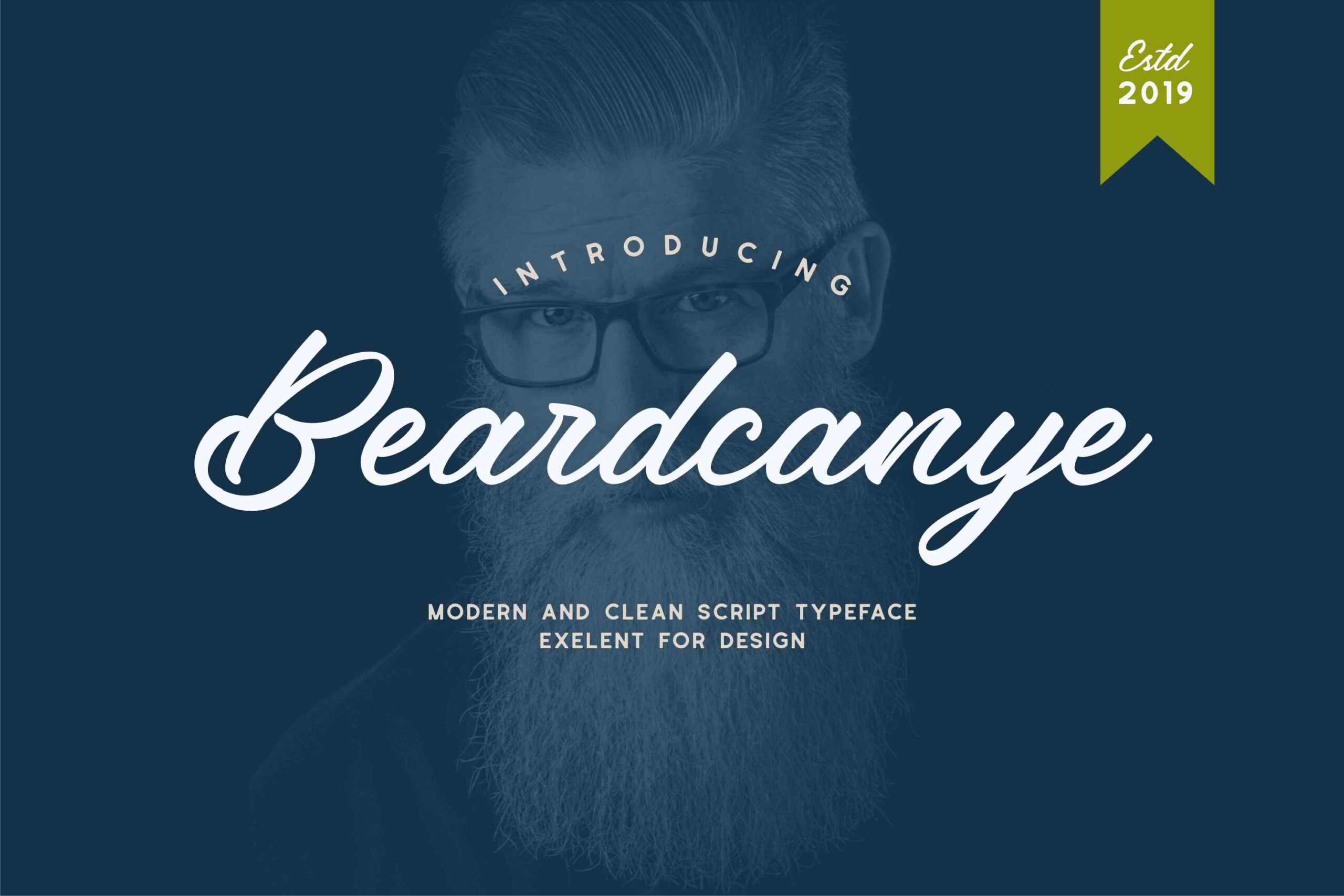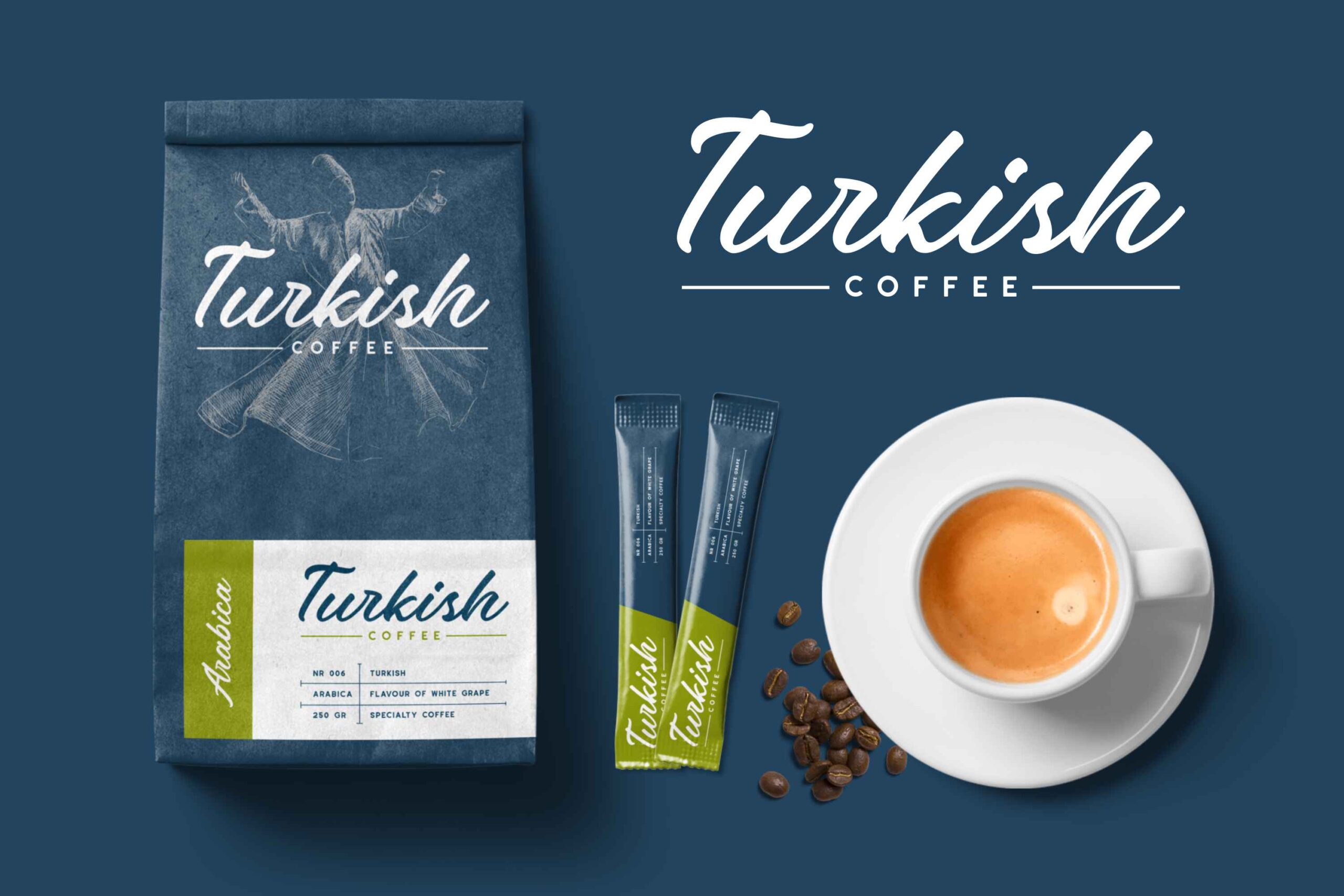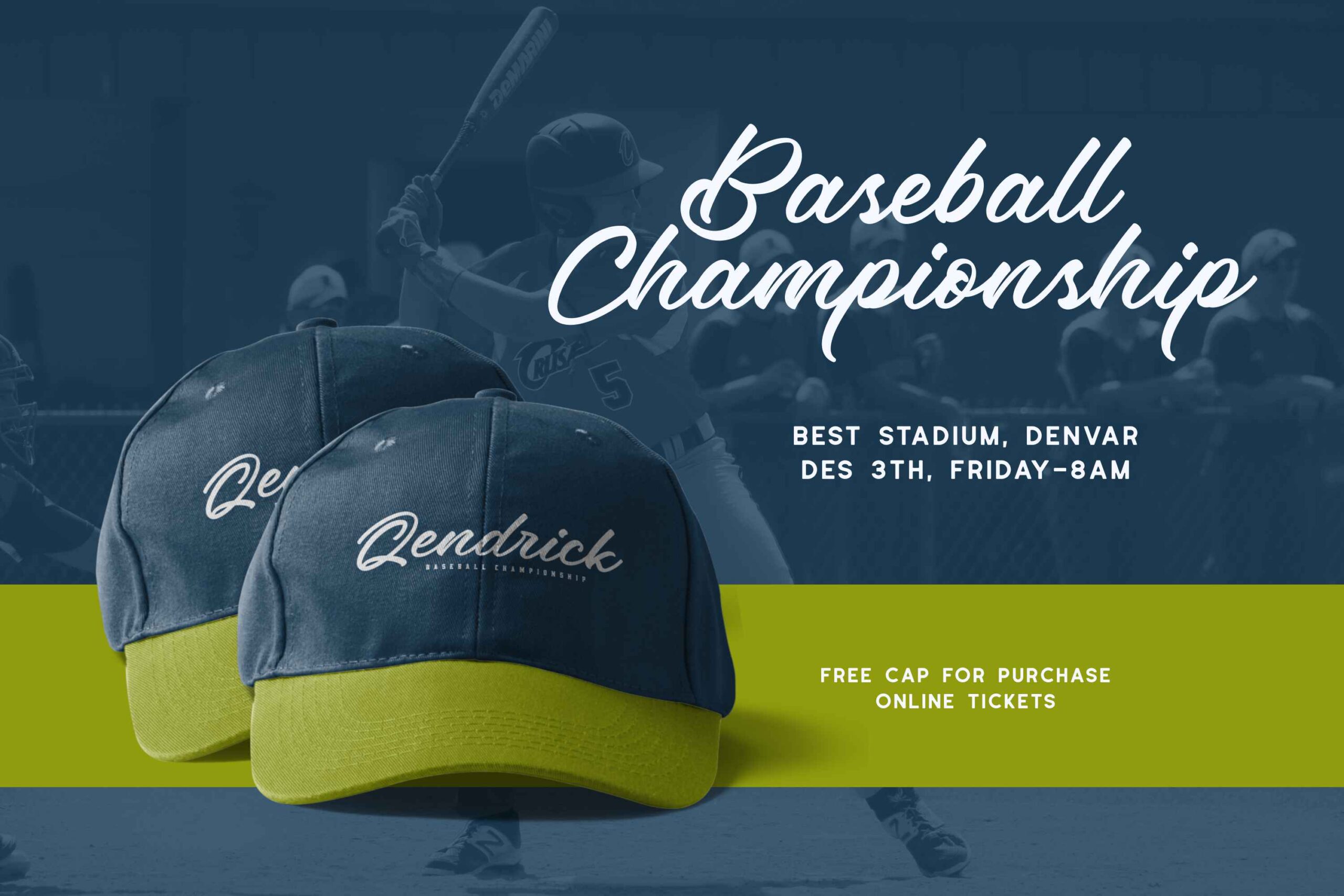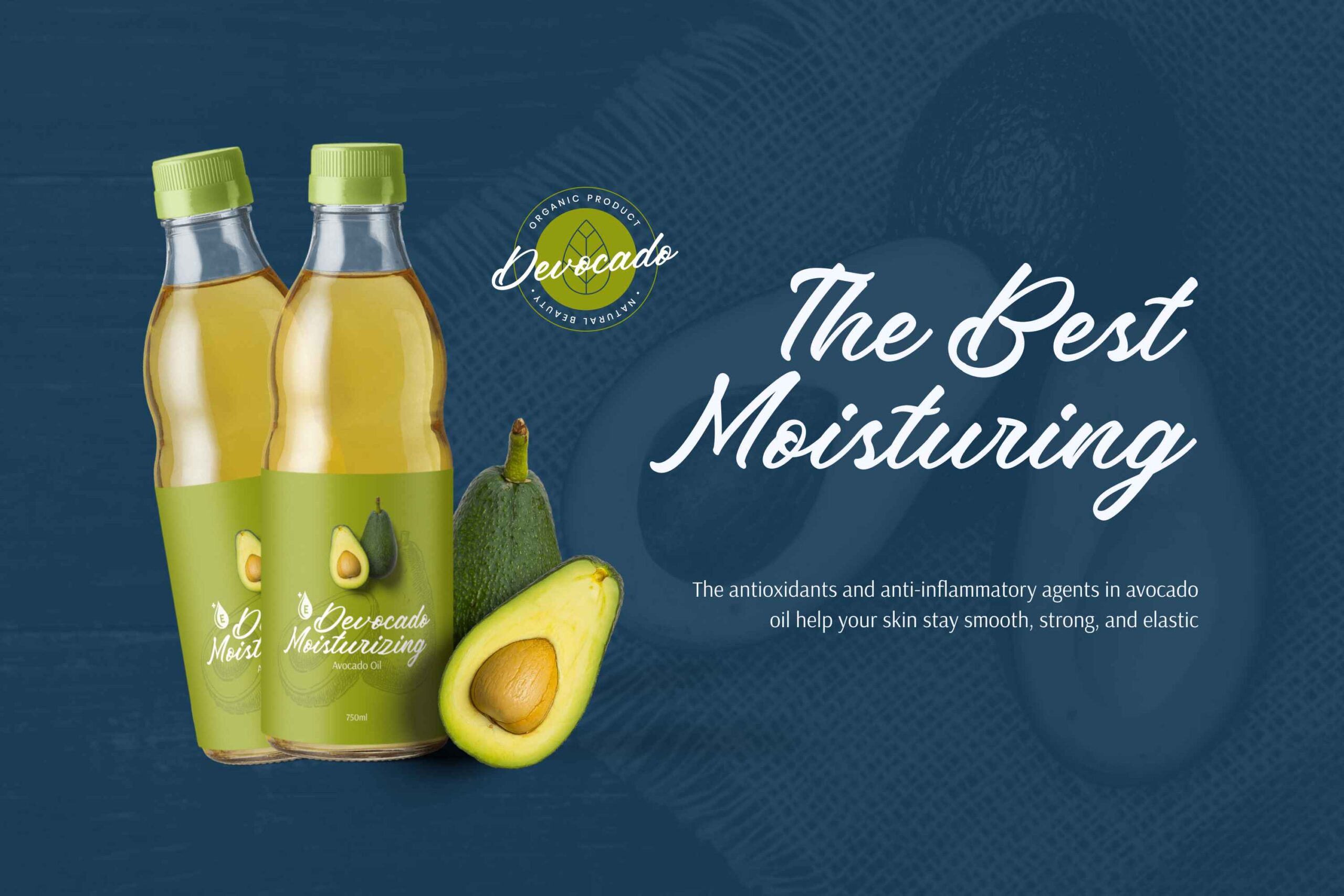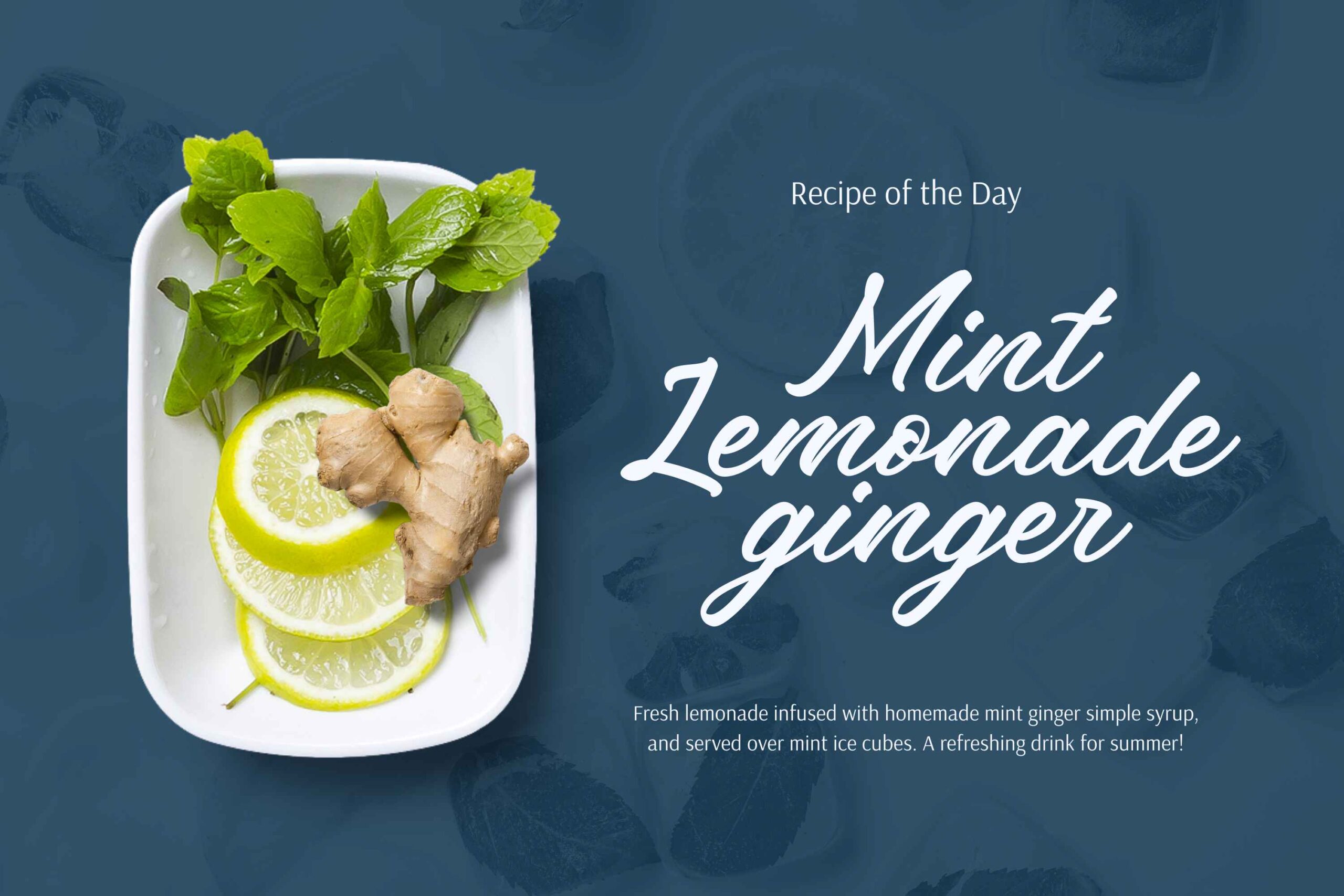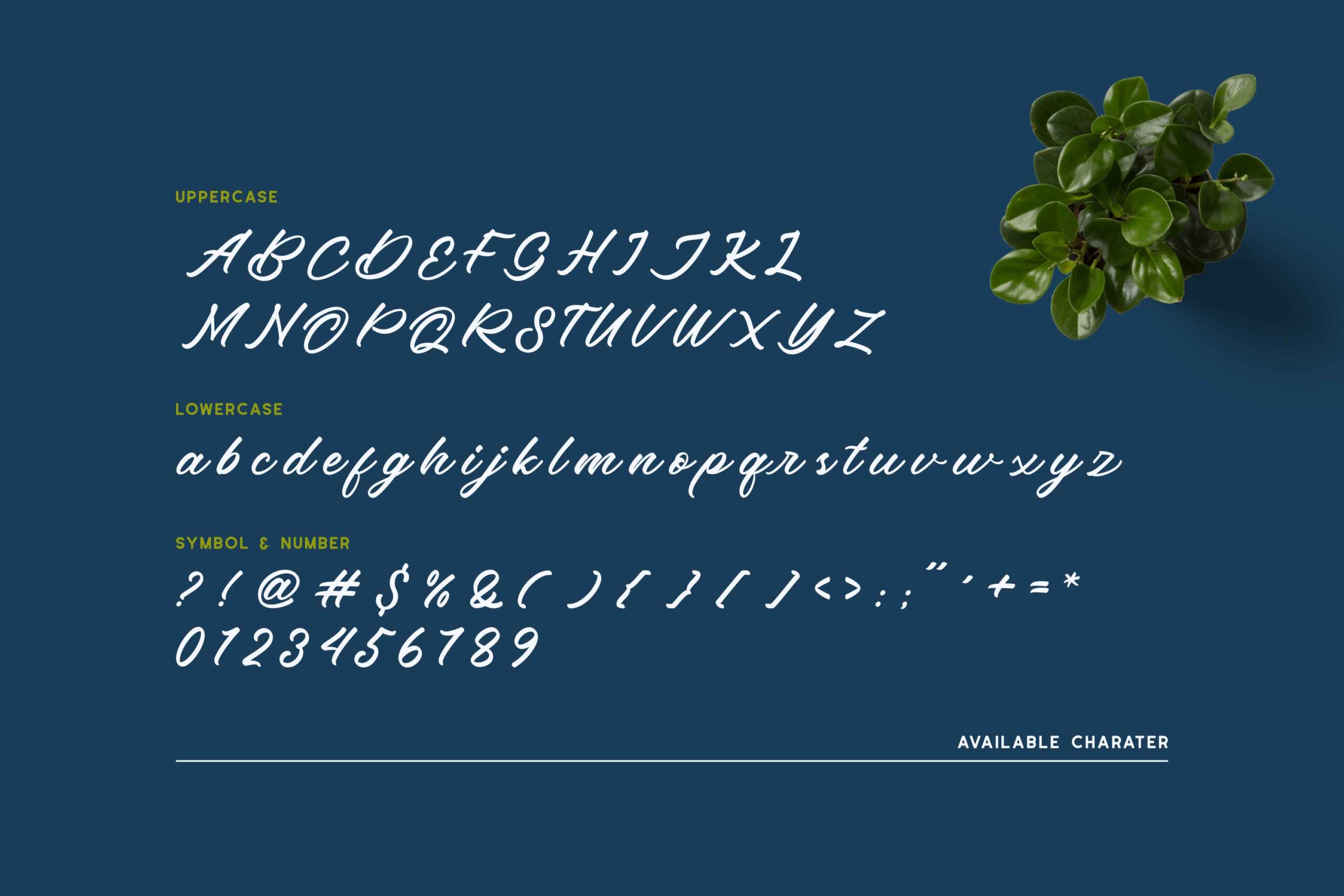
Beardcanye is a modern and clean script typeface that brings a fresh, handcrafted feel to your designs. With smooth strokes and elegant letterforms, it blends traditional calligraphy charm with contemporary aesthetics. The font offers both uppercase and lowercase characters, numbers, and punctuation, making it versatile for a wide range of creative applications.
Perfect for branding, packaging, apparel, or promotional materials, Beardcanye works beautifully for logos, headlines, and stylish text overlays. Whether you’re crafting a gourmet coffee label or a trendy baseball cap, this script typeface adds a personal and professional touch to your project.